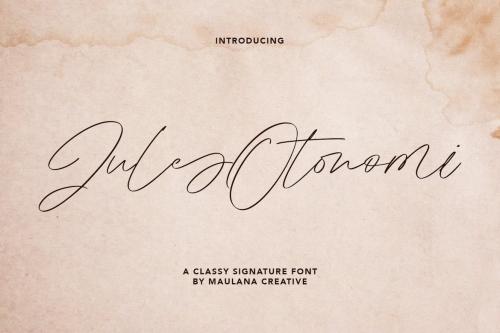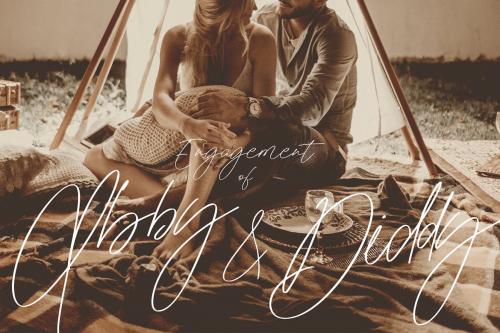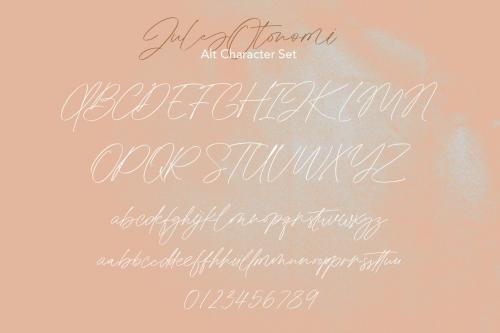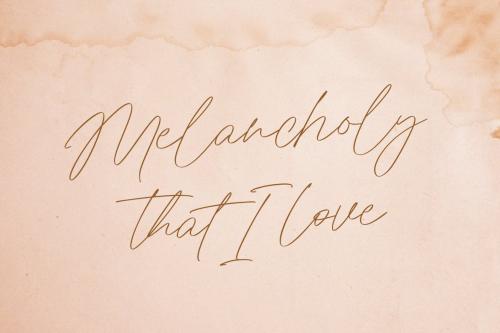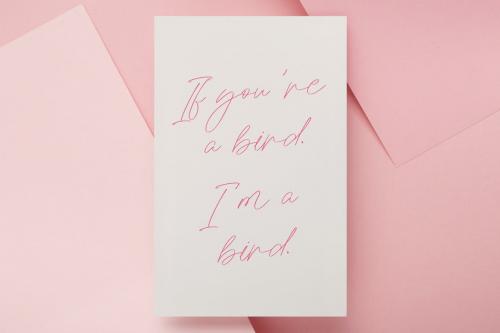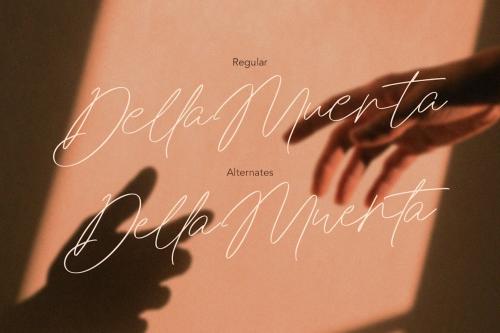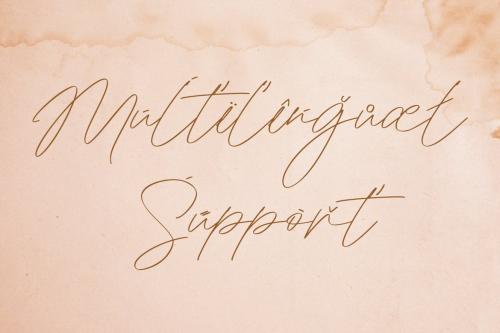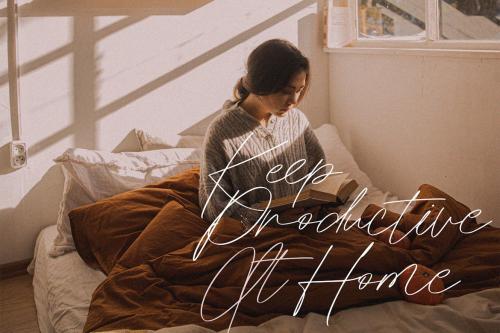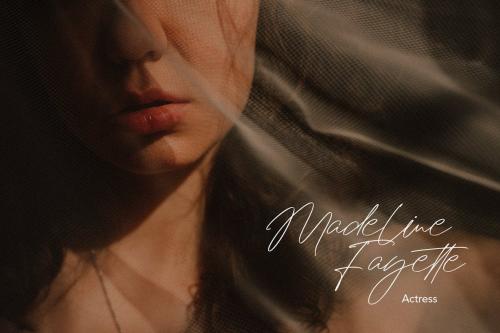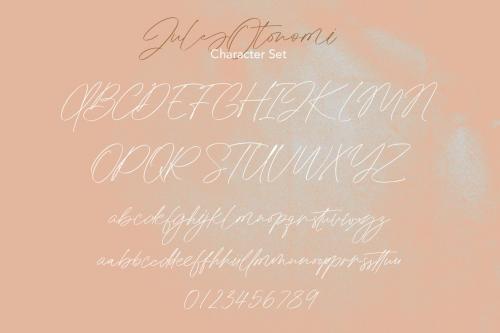
朱尔斯·奥托诺米典雅签名字体
Jules Otonomi Classy Signature Font
Jules Otonomi is a Classy look signature font. Jules Otonomi included opentype features Rich Ligatures and Lowercase alternates. Jules Otonomi support multilingual more than 100+ language. This font is good for logo design, Movie Titles, Books Titles, a short text even a long text letter and any awesome project you create. Make a stunning work with Jules Otonomi classy signature font.